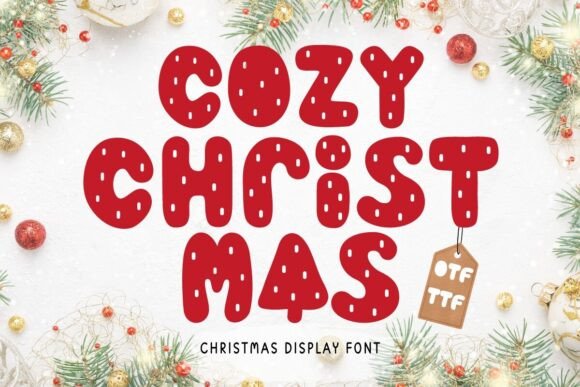
Cozy Christmas Font: The Ultimate Holiday Display Font
The holiday season is upon us, and what better way to get into the festive spirit than with a font that’s as cozy as a warm cup of hot cocoa? Look no further than Cozy Christmas, a groovy and playful display font designed to bring warmth and cheer to your holiday projects. In this article, we’ll dive into the features and benefits of Cozy Christmas, and explore how you can use it to add a touch of Christmas magic to your designs.
What is Cozy Christmas Font?
Cozy Christmas is a chunky, retro-inspired display font that’s perfect for adding a festive touch to your holiday projects. This fun and playful font features cute snow-like dots on the letters, giving it a whimsical and charming feel that’s sure to capture the spirit of the season. With its bold and eye-catching design, Cozy Christmas is ideal for use on holiday cards, festive invitations, product packaging, Christmas decorations, and much more.
Key Features of Cozy Christmas Font
- Chunky and retro-inspired design: Cozy Christmas has a bold and playful design that’s reminiscent of classic holiday fonts from the past.
- Cute snow-like dots on letters: The font features adorable snow-like dots on the letters, adding a whimsical touch of Christmas charm.
- Perfect for holiday projects: Cozy Christmas is designed specifically for holiday projects, making it the perfect choice for designers looking for a festive font.
- Supports print and digital design: Whether you’re designing for print or digital, Cozy Christmas will give your creations a cozy and fun holiday vibe.
Uses for Cozy Christmas Font
Cozy Christmas is a versatile font that can be used in a variety of ways to add a touch of holiday cheer to your designs. Here are some ideas to get you started:
Holiday Cards and Invitations
Cozy Christmas is perfect for creating festive holiday cards and invitations. Use it to add a playful touch to your designs and make your recipients feel like they’re getting a special treat.
Product Packaging
Add a touch of holiday magic to your product packaging with Cozy Christmas. This font is perfect for creating eye-catching labels, tags, and other packaging materials that will make your products stand out.
Christmas Decorations
Cozy Christmas can also be used to create festive Christmas decorations, such as garlands, banners, and other holiday decor. Use it to add a playful touch to your decorations and make your home feel cozy and inviting.
Tips for Using Cozy Christmas Font
Here are some tips for getting the most out of Cozy Christmas:
Pair it with Other Fonts
Cozy Christmas is a bold and playful font, but it can be even more effective when paired with other fonts. Try pairing it with a clean and simple font to create a fun and contrasting look.
Experiment with Colors
Cozy Christmas looks great in traditional holiday colors like red and green, but don’t be afraid to experiment with other colors to create a unique look. Try using pastel colors or metallic colors to add a touch of elegance to your designs.
Use it in Digital Designs
Cozy Christmas is not just limited to print design. Use it in digital designs, such as social media graphics, email newsletters, and website headers, to add a touch of holiday cheer to your online presence.
Cozy Christmas is a fun and playful display font that’s perfect for adding a touch of holiday cheer to your designs. With its chunky and retro-inspired design, cute snow-like dots on letters, and versatility in use, Cozy Christmas is the ultimate holiday font for designers. Whether you’re designing for print or digital, Cozy Christmas will give your creations a cozy and fun holiday vibe that’s sure to capture the spirit of the season.